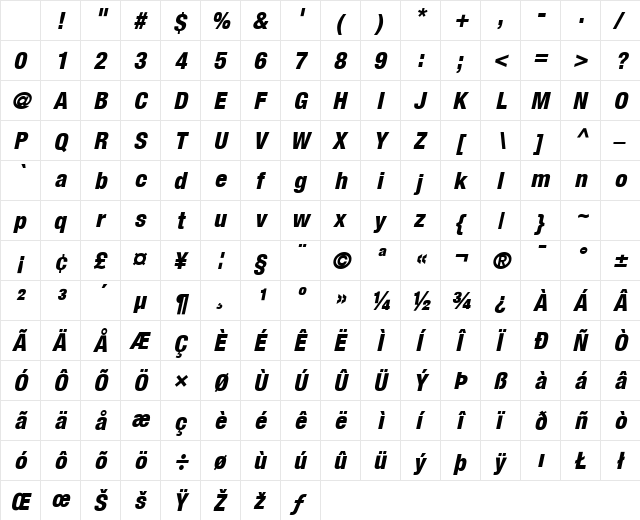
Complete Context Reprise BlackCond SSi Normal glyph index. Displaying only characters natively supported by Context Reprise BlackCond SSi Normal font.
Context Reprise BlackCond SSi is a composed and adaptable typeface that performs quietly and consistently across a wide range of design contexts. Its narrow stance lets it pack a punch even in space-constrained designs.